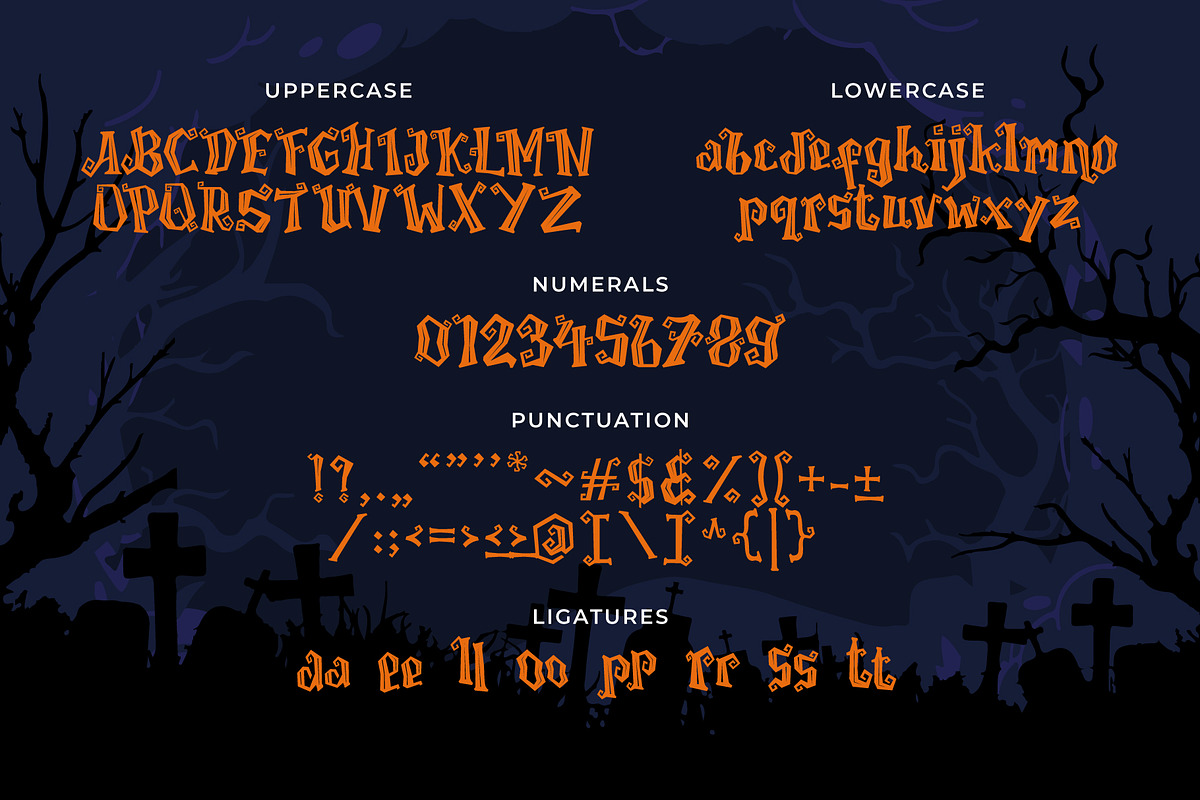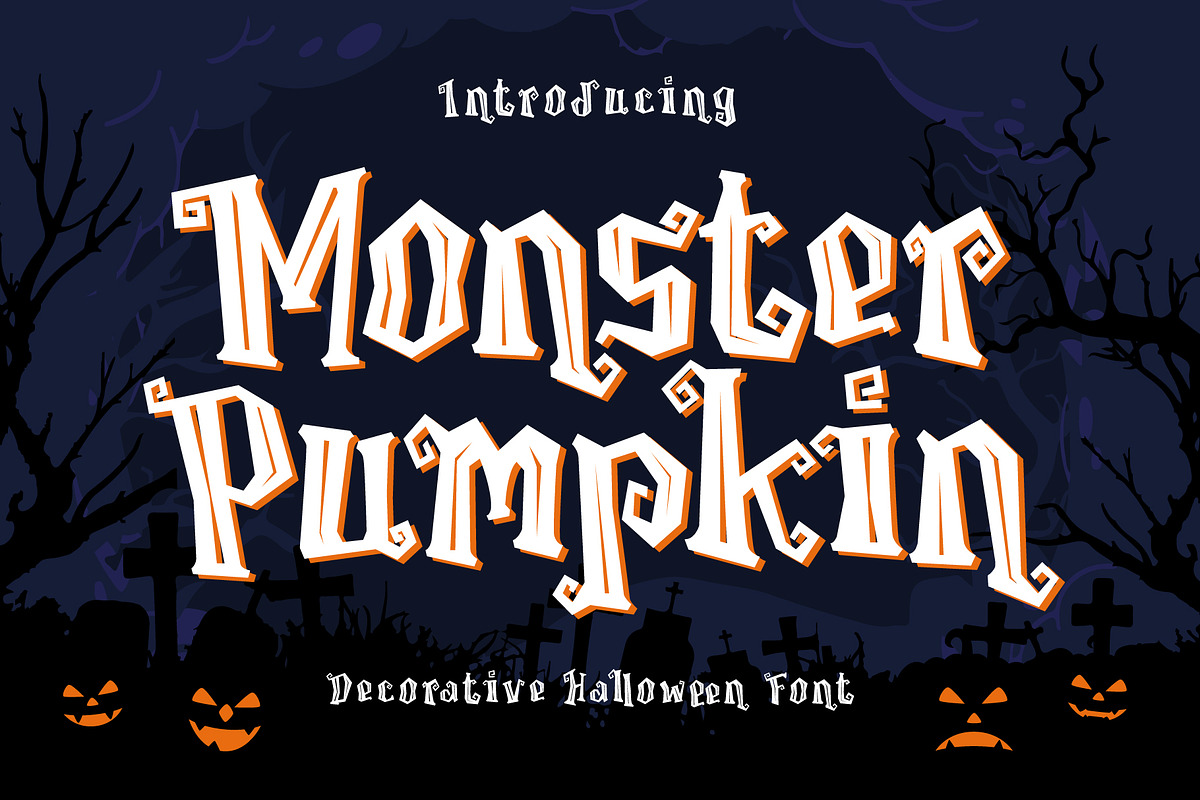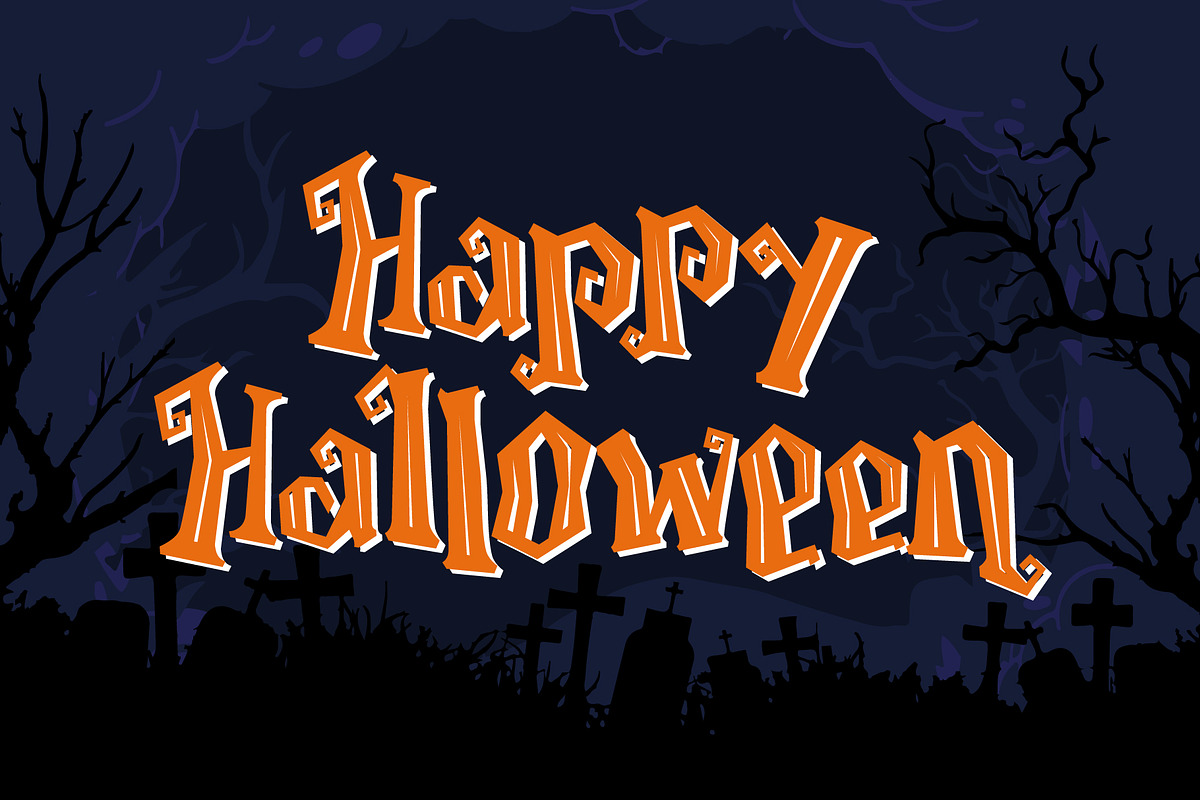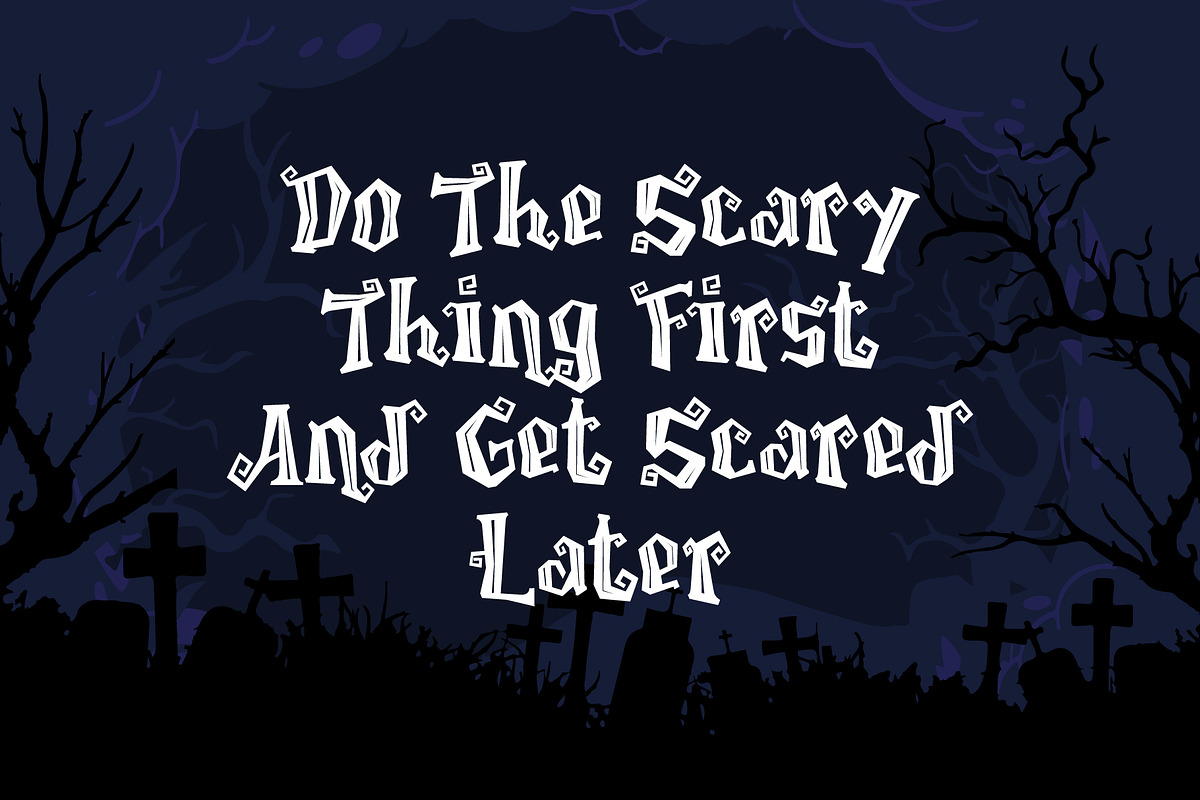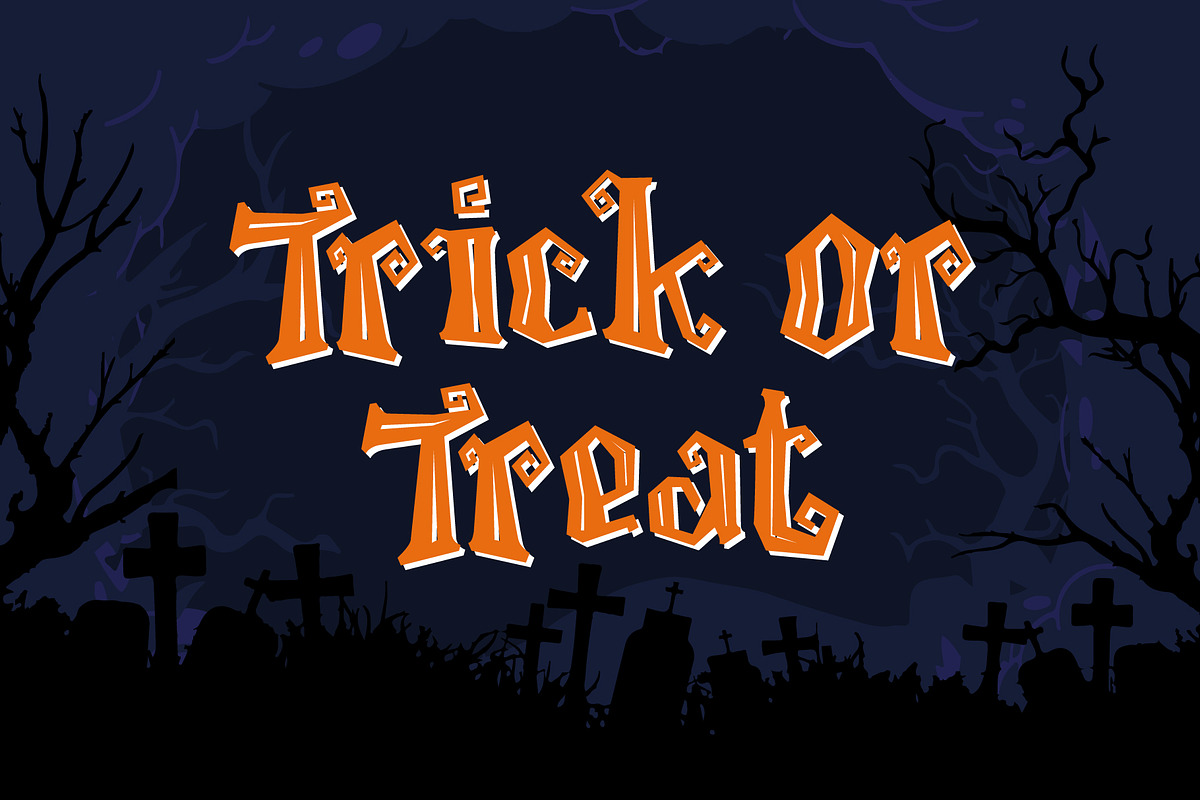
Monster Pumpkin
Monster Pumpkin is a font created to complement your Halloween Party. This font is very strong character. Ceram, Horror, and Fear. This font is perfect for making Halloween poster or flyer.